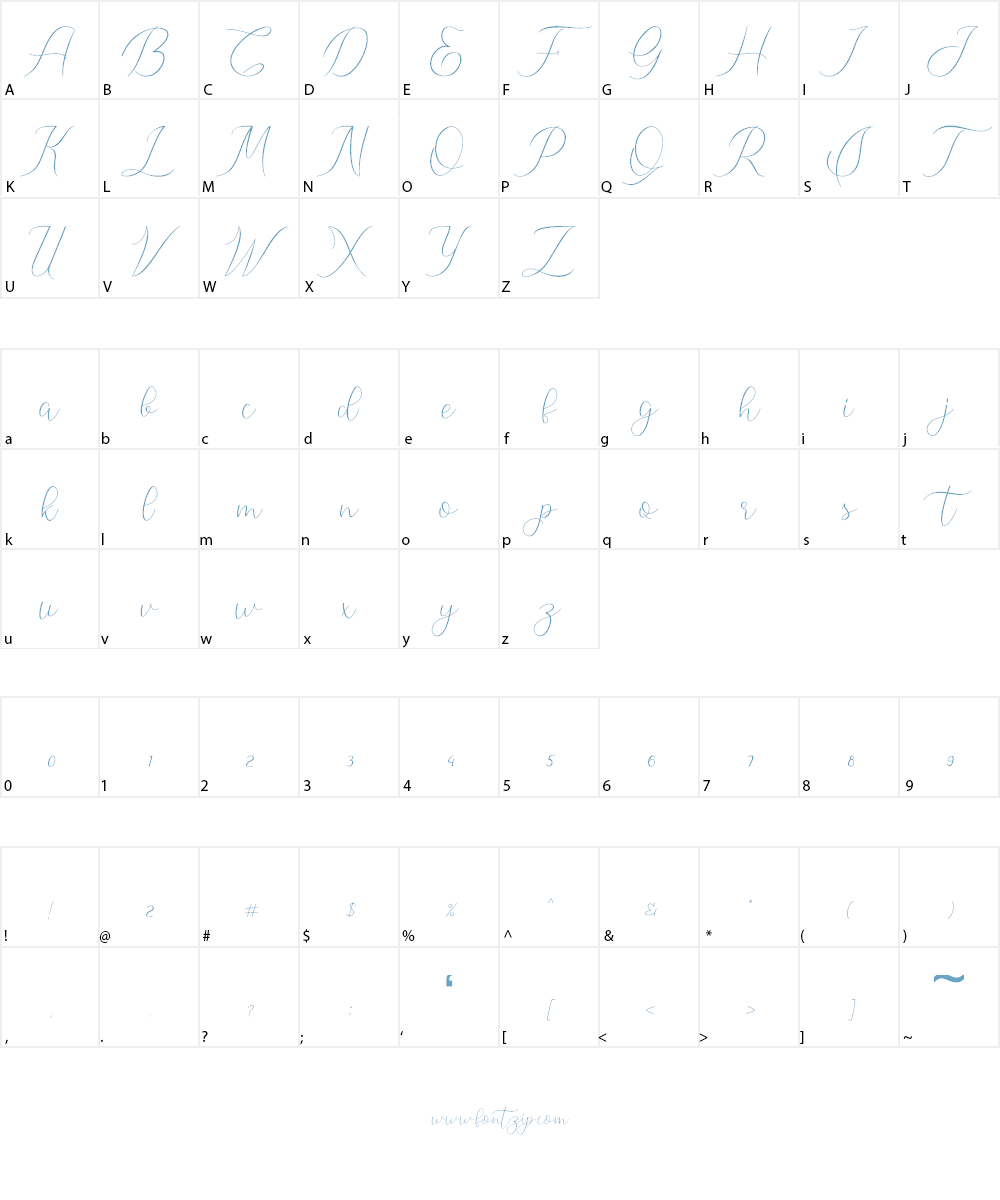
Meillyne is a truly gorgeous and magical script with a unique calligraphic style. Fall in love with its gorgeous swashes and add a decorative touch to any project in an instant.
This font is PUA encoded which means you can access all of the magical and fancy glyphs and swashes with ease! It also features a wealth of special features including alternate glyphs and ligatures.